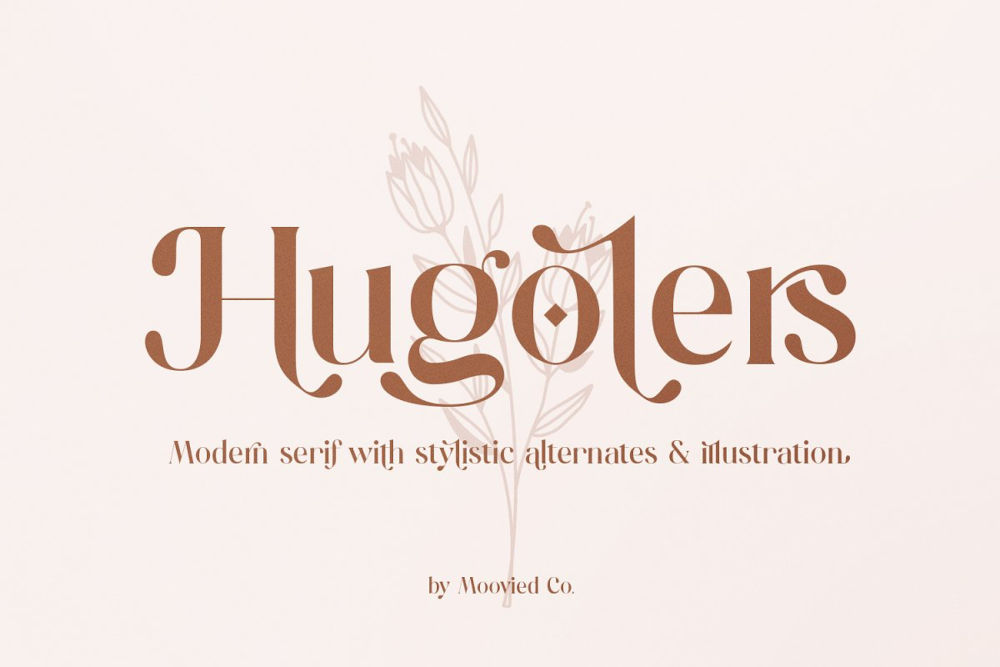
Introduce Hugolers Serif Font by Moovied Co.
Hugolers lets modernity appear in your projects not just with its stunning character design but with its alternates and ligatures that bring you more options for your texts and the ability to make each letter count.
Magazine titles, logotypes, blogs, journals, posters, typography art, cards, choose where you want Hugolers to show its vivid display and make the trip as magical as it can be.